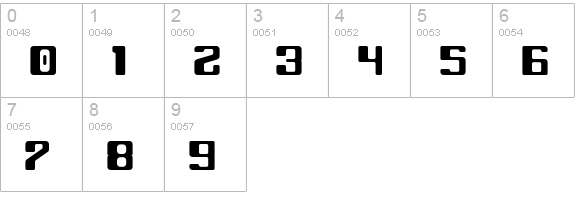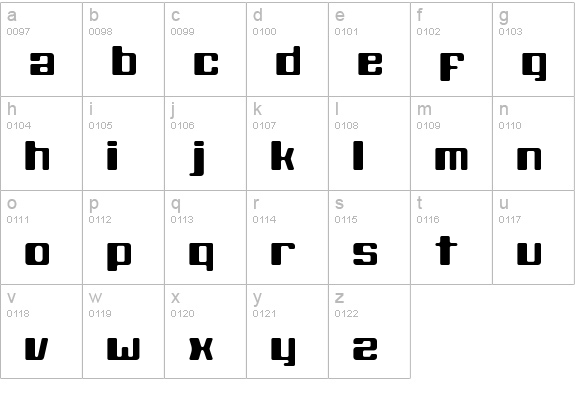
Black Wolf Font Details
Black Wolf is a maximum-weight, dramatic variant in the Black typeface family \xE2\x80\x94 well suited to maximum-impact headlines, posters, and packaging.
Black Wolf is a striking and bold display font that exudes power and elegance. With its sharp edges and sleek lines, this font is perfect for creating eye-catching titles, logos, and branding materials. The unique design of Black Wolf adds a touch of sophistication to any project, making it stand out from the crowd. What's even better is that Black Wolf is available for free download at FontsMarket.com. This means you can easily access this stunning font and use it in your designs without any cost. Whether you are a graphic designer, a business owner, or a creative enthusiast, Black Wolf is a versatile font that will elevate your projects to the next level. Download Black Wolf today and unleash your creativity with this exceptional typeface.